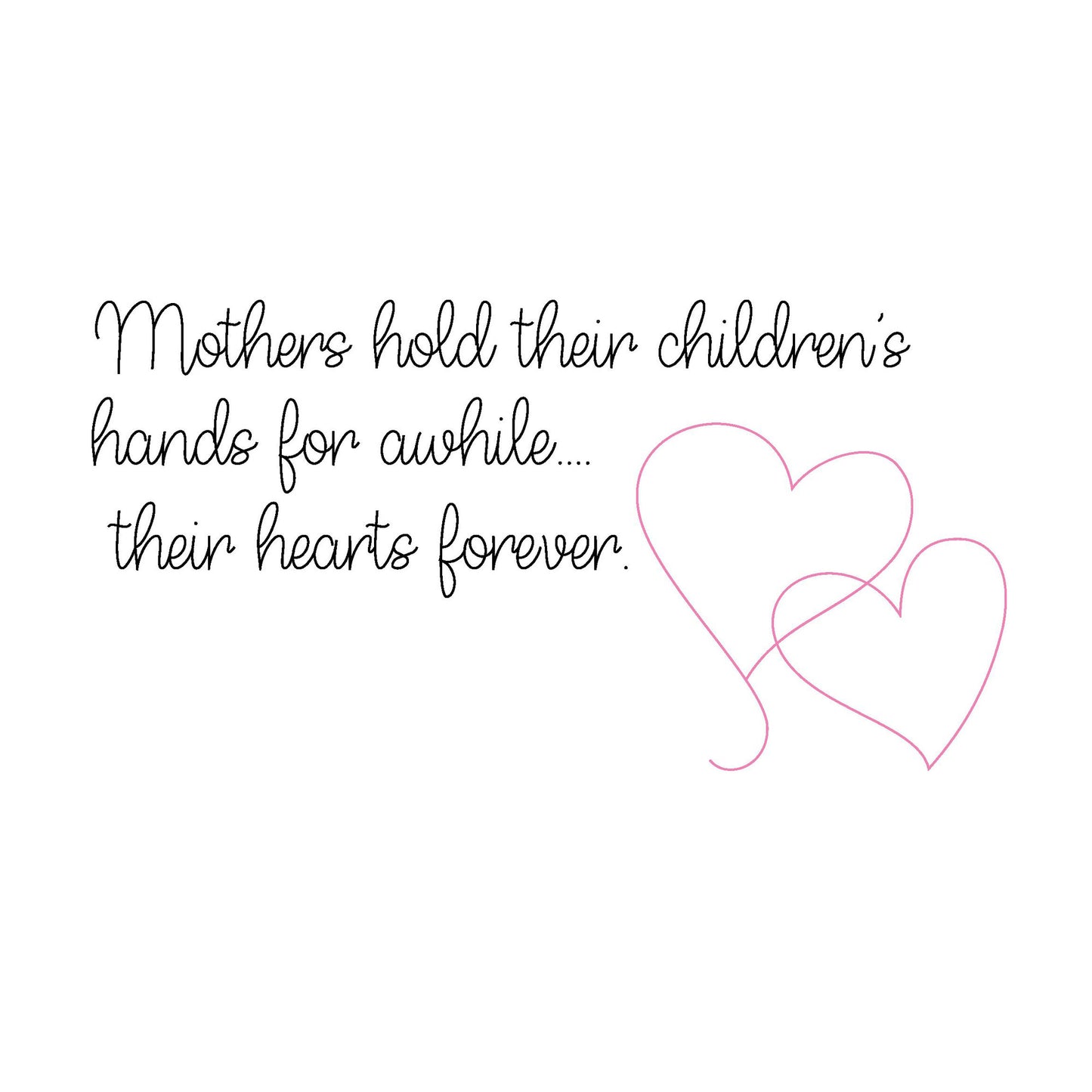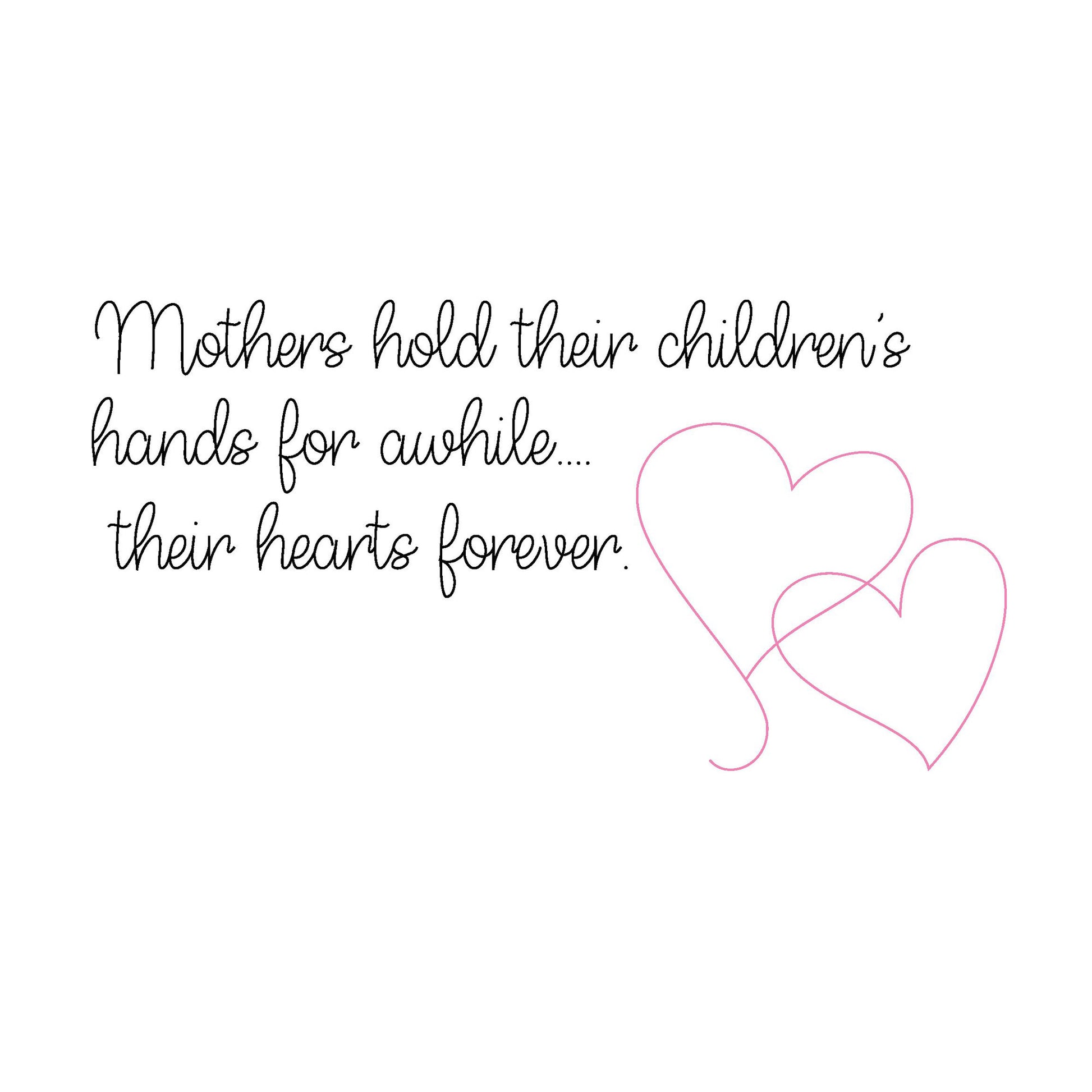
"Mothers Hold Their Children's Hearts Forever" Single Line Design
This design is a perfect Mother's day phrase, and goes perfectly on cards, signs, and jewelry.
Single line design with the sentiment "Mothers hold their children's hands for awhile... their hearts forever", and two intertwined hearts. Create it in two colors, as our sample, or make it all one color.